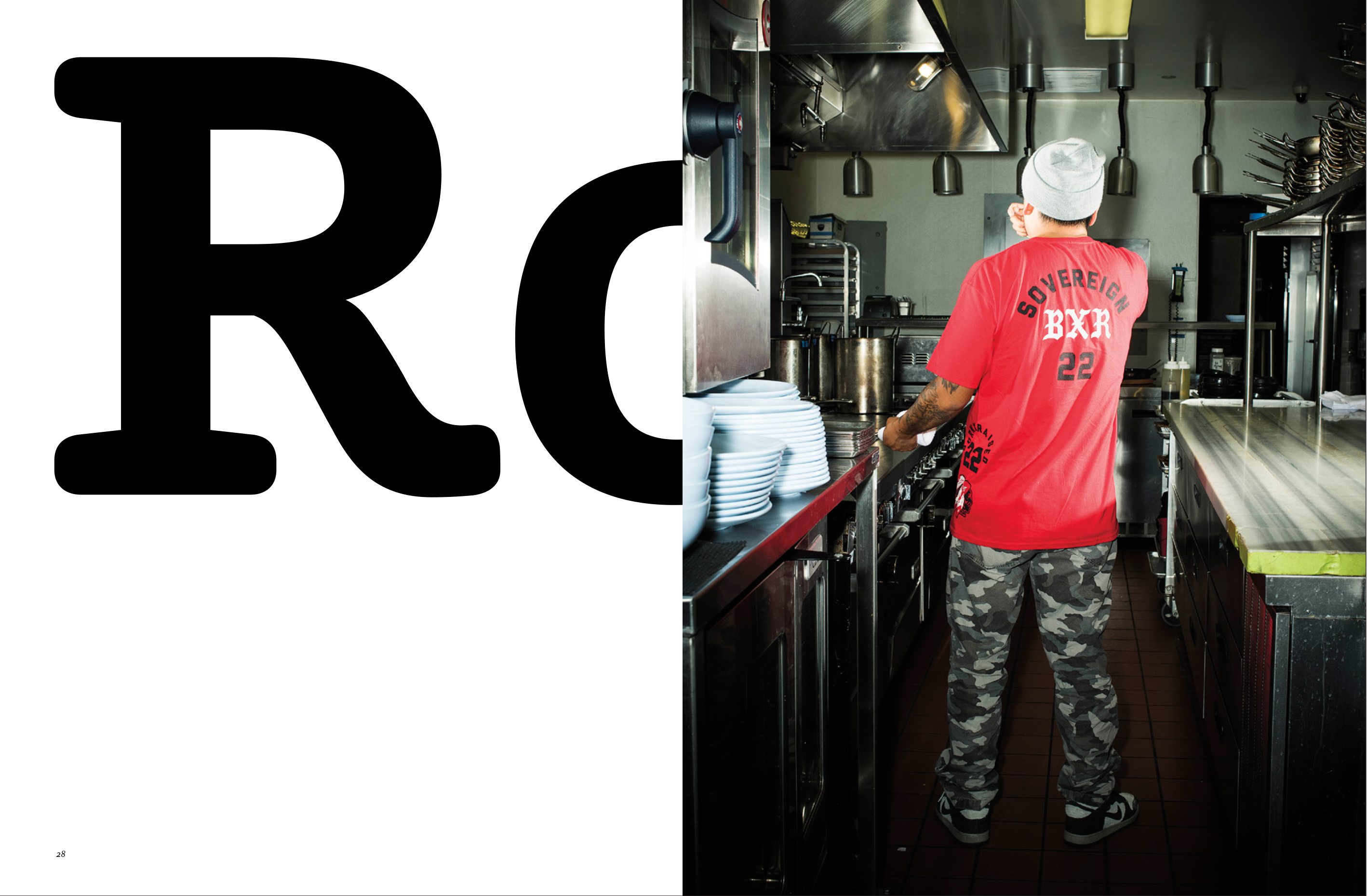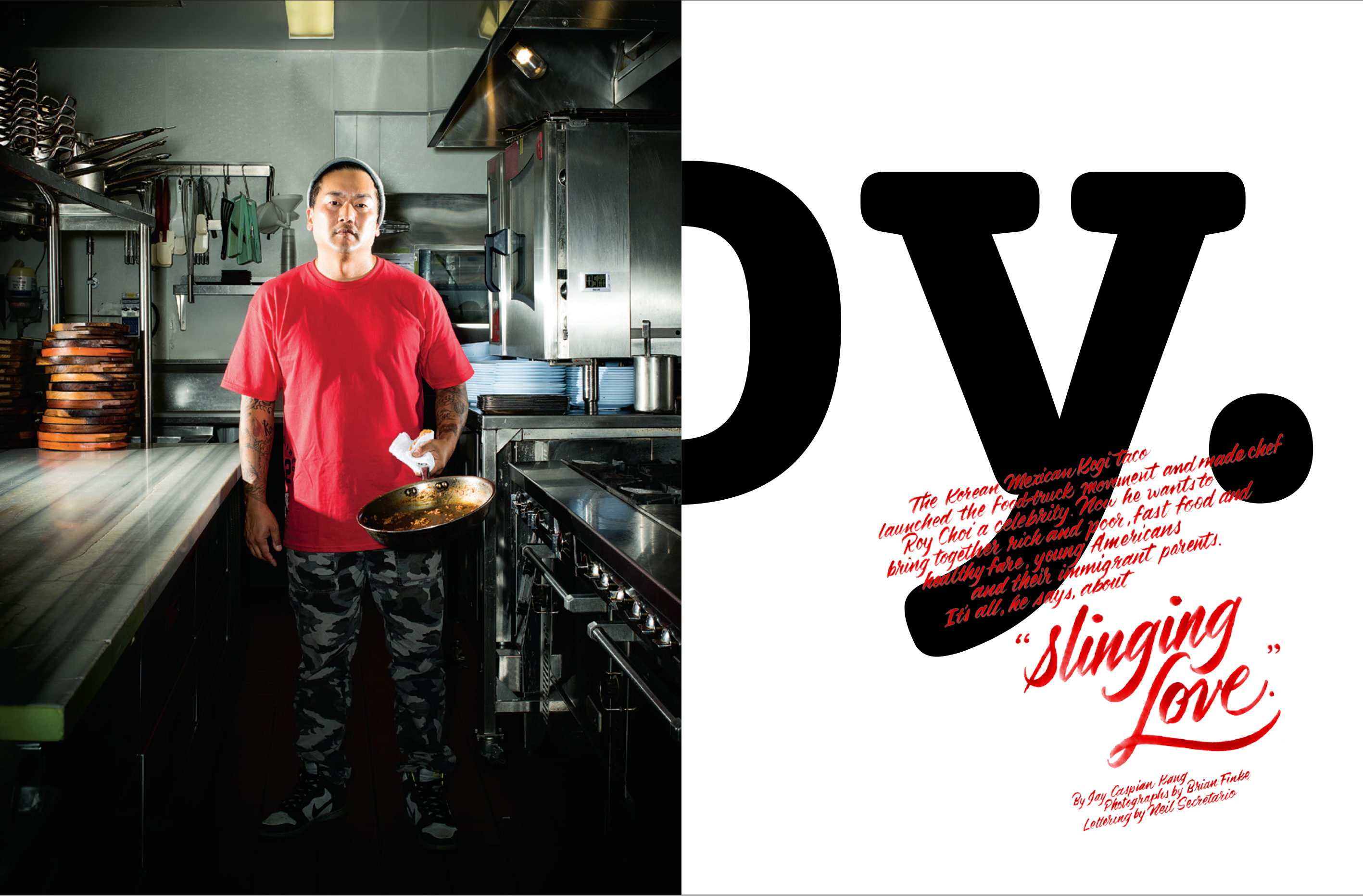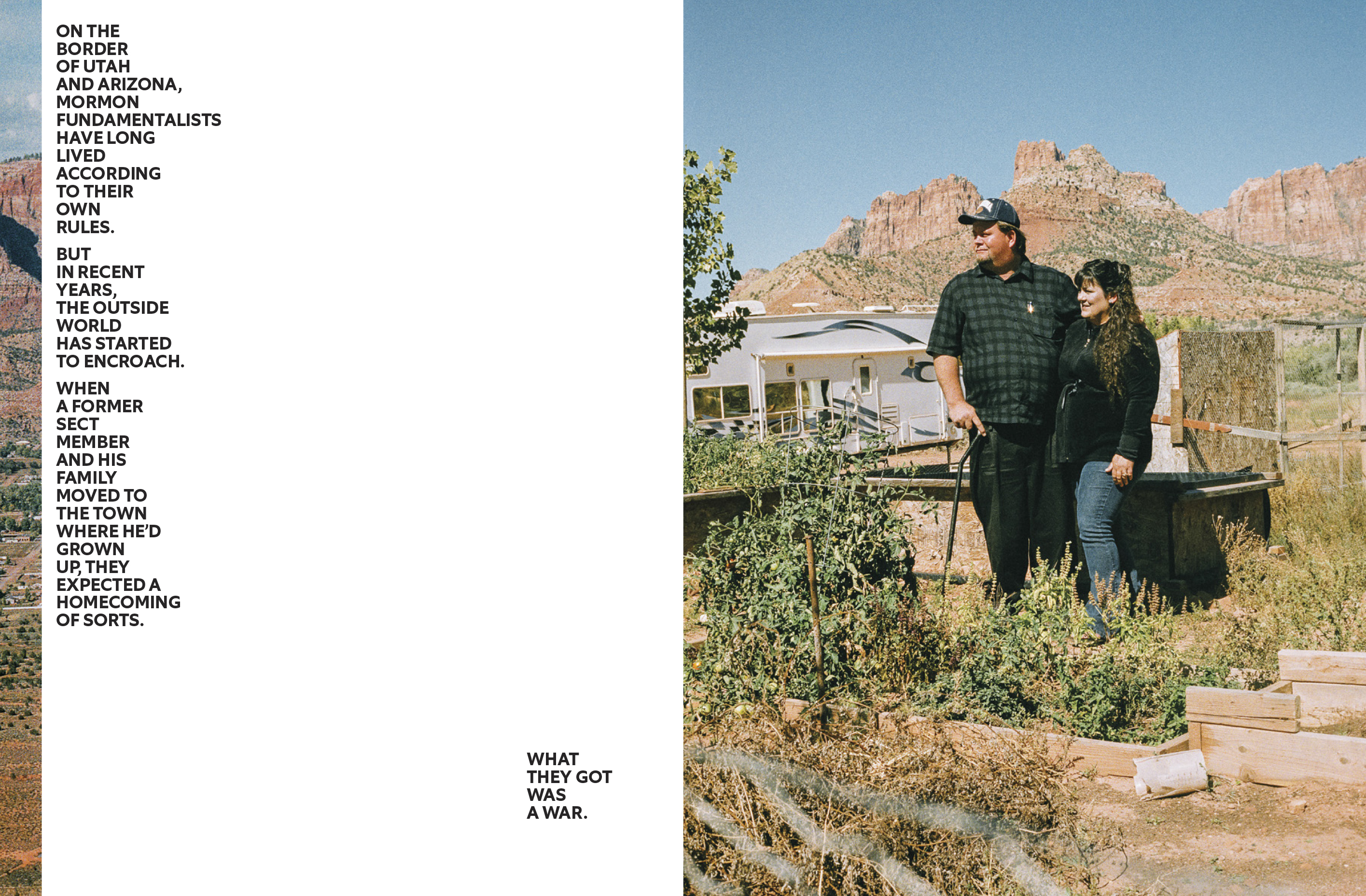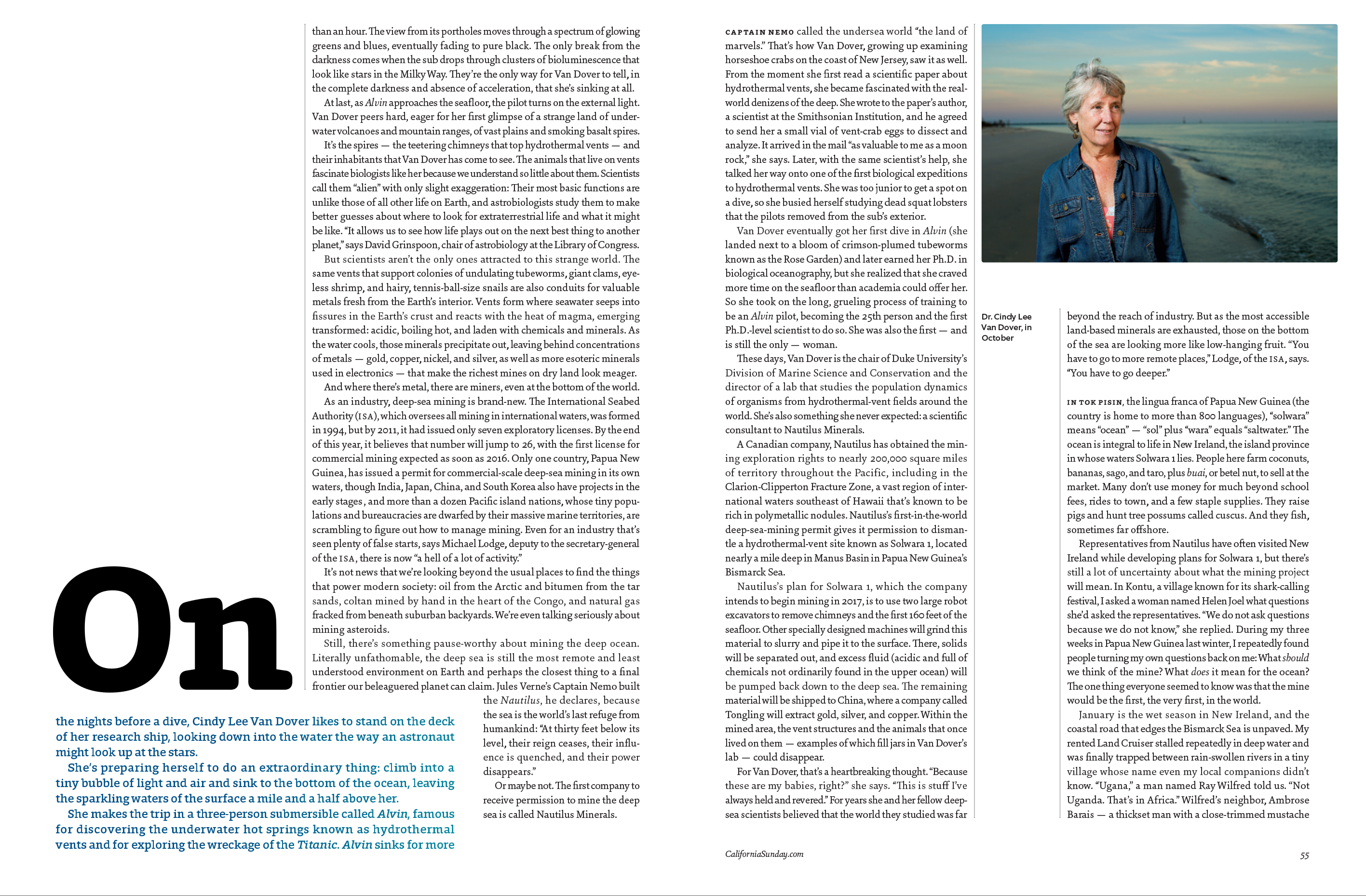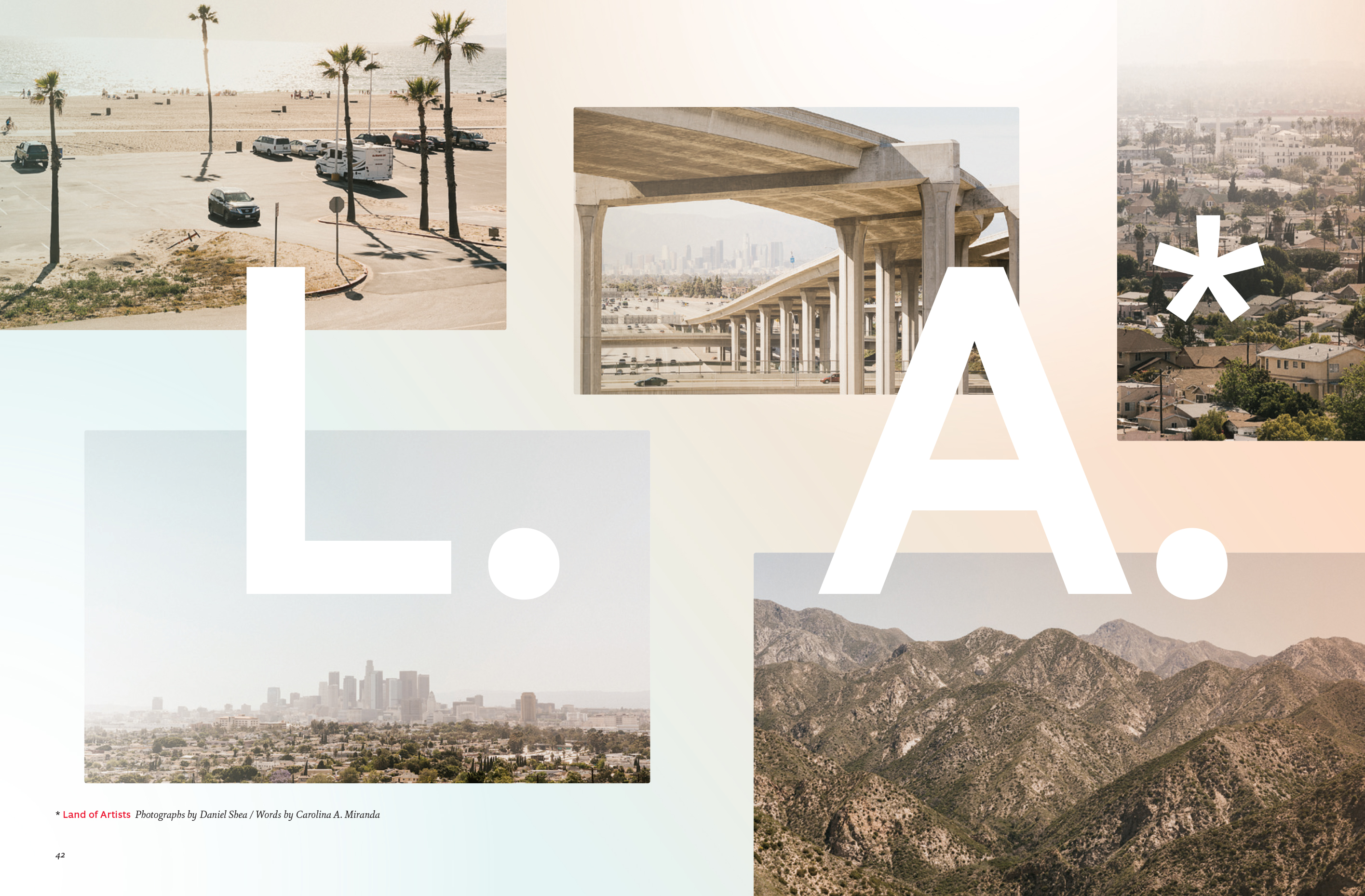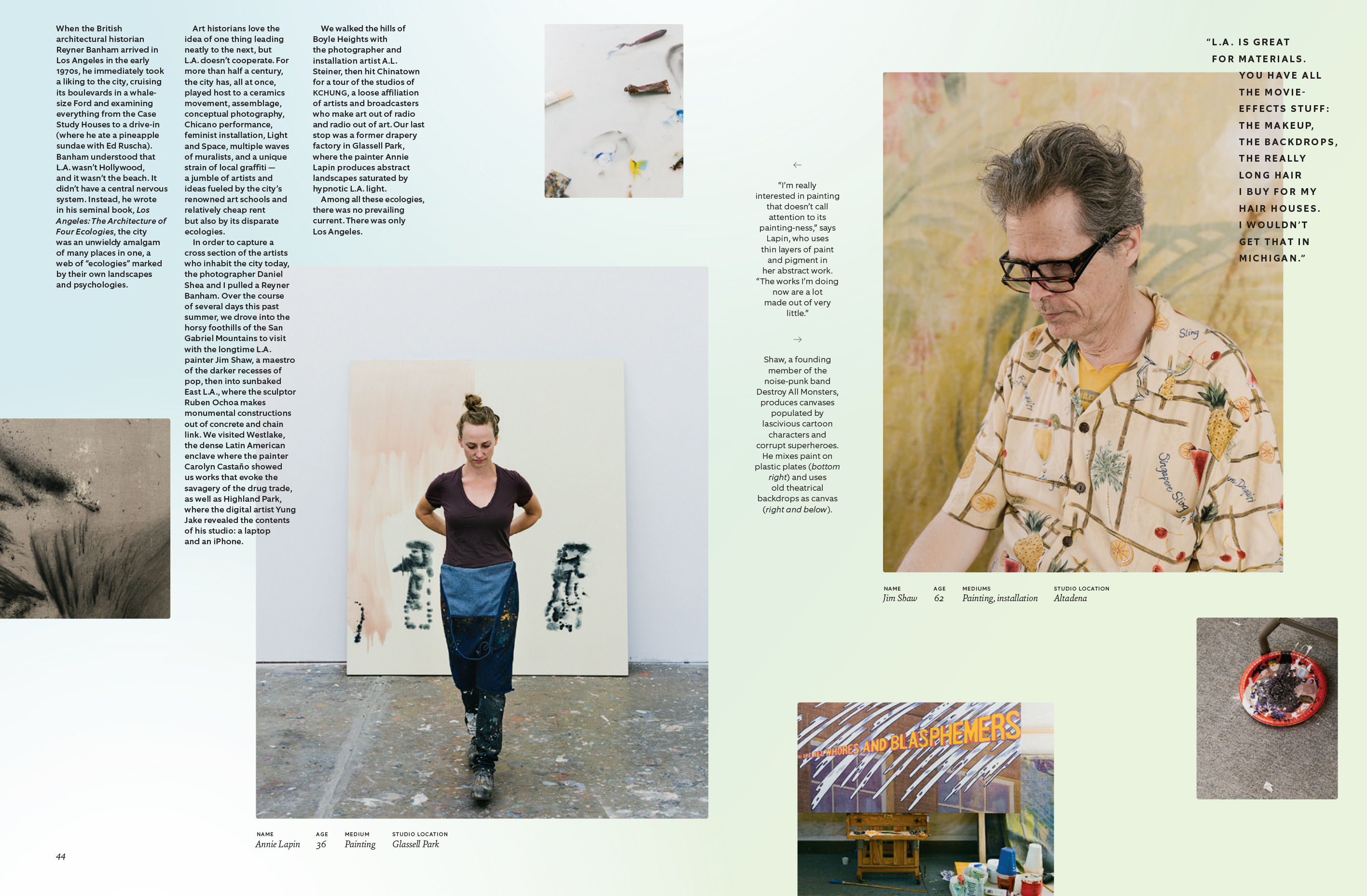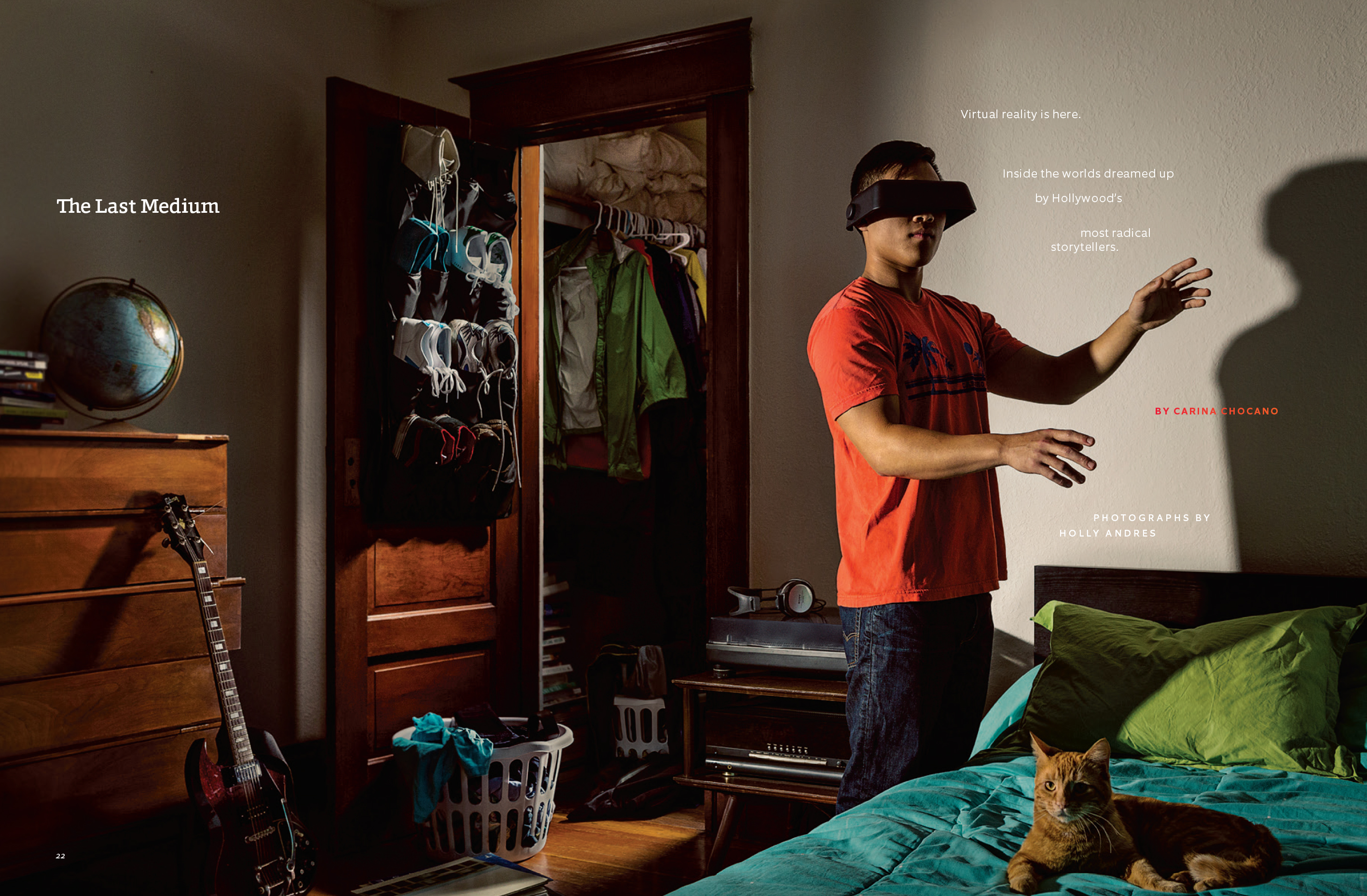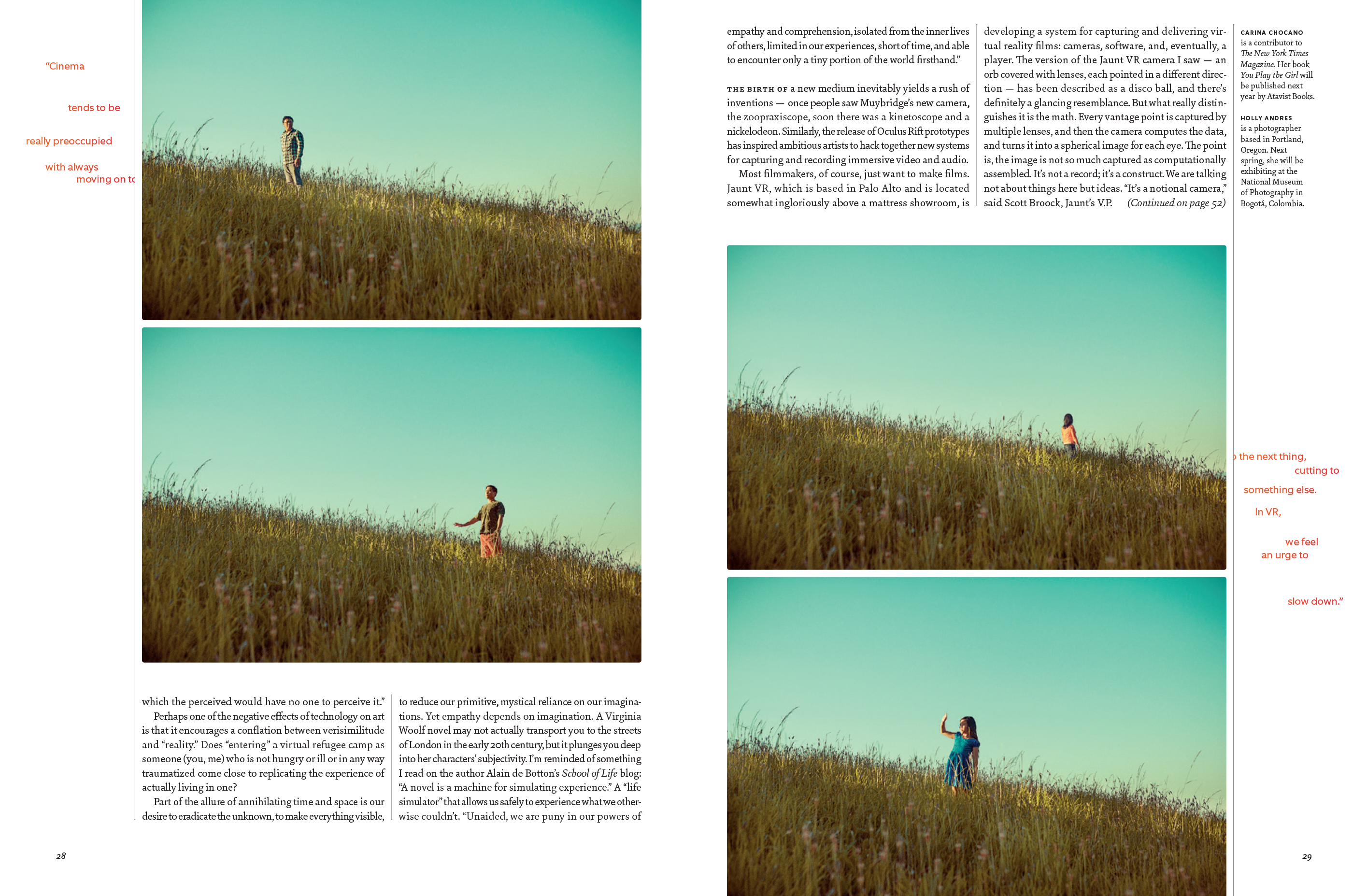
An interview with Leo Jung on his sleek California dreamin'
A man of many talents, Leo Jung continues to explore the limits of magazine design in the digital era. As the Creative Director of California Sunday Magazine, a publication that many have called the West Coast’s answer to New Yorker, San Francisco based Leo Jung’s vision of communication has been recognized by the Art Directors Club, Type Directors Club, and the Society of Publication Designers. This is a small talk we had with the former design director at Wired and deputy art director at The New York Times Magazine.The man who is responsible for a start-up experiment of many prospects.
Please tell us a little bit about yourself: who are you, where do you come from and where are you going?
Hi! My name is Leo. I was born in a small town outside of Montreal, but grew up and spent most of my life in Toronto. Over the last nine years I’ve worked in the U.S. — five of them in New York and the last four have been in lovely San Francisco. I am the creative director for California Sunday Inc., a media company, that includes The California Sunday Magazine and Pop-Up Magazine.
What was your first job ever?
I was lucky enough to start my design career at a brilliantly creative (and still very much so after many years) Toronto-based studio called Concrete. It didn’t occur to me then that the projects and the people would leave a very lasting impression on my growth as a designer. It was a post art school education unlike any other. The less interesting answer is my first job as kitchen help at a rotisserie chicken restaurant in Toronto back when I was a teenager.
What’s been the biggest turning point in your career so far?
Back in 2006, I moved to New York to work for The New York Times Magazine. Needless to say it was a completely eye opening experience. Aside from working for the most renowned news organization in the world, I was jumping from the quiet suburbs of Toronto to the hustle and bustle of Manhattan. It was life changing on many levels. I love Toronto and it will always be home — but there’s no other place in the world quite like New York City. The design community is incredibly big but surprisingly small at the same time. I was meeting designers whom I admired and only knew by name in design annuals. It was the design version of meeting Hollywood celebrities. I realized they were actually people. Real people -- like you and me. Becoming a part of that community does wonders to build confidence in what you do and motivates you to become better.
California Sunday Magazine was a challenge unlike any other. For the first time, I didn’t have the reputation of a company to define me. The blank canvas was as scary as it was exciting
What’s been your worst moment?
I don’t find it healthy to dwell on bad times. I’ve had my share of bumps in the road and the truth is they needed to happen in order for me to be where I am today. It’s about how you bounce back and not letting those moments define you.
What’s been your finest moment?
I’m very lucky to be able to say I’ve had many. And every time I think it’s as good as it’s going to get, something bigger happens. As of right now? Putting out the debut issue of The California Sunday Magazine. The whole team has very high ambitions for this title and we are working very hard to make sure that it lives up to everything that it can be. As time passes, I hope the answer to this question will change — and often.
Why did you decide to join the California Sunday Magazine start up?
Douglas McGray, one of the founders and brilliant minds behind Pop-Up Magazine approached me with a very intriguing proposition — a national magazine for the west coast. I realized that this was the opportunity that I was waiting for. It was a challenge unlike any other — head up the creative for a brand new magazine for print, digital, and live events. Oh, and build it from the ground up. Its potential was as big as I wanted it to be. Its creative vision would be mine to define. That’s not something any already-renowned magazine could ever really offer. For the first time, I didn’t have the reputation of a company to define me. The blank canvas was as scary as it was exciting.
Respecting the rules of graphic design and knowing when to break them is the best skill you can develop
What are your hopes and vision for it?
From the very beginning, Doug had always described wanting the magazine to be very visual and cinematic. That puts a lot of weight on the imagery to tell the stories. Working with my incomparable photo director, Jacqueline Bates, we’ve been able to define a look to our imagery that feels real, intimate, and engaging. Great photographs can convey so much information in terms of setting, mood, and emotion that the challenge lies in how you present that information in a way that best coincides with the narrative arc of the story. From a visual standpoint, the imagery (photography and illustration) is the most important. It gets the most real estate. The design is obviously important to me as well, but more secondary. You’ll notice the design more when it needs to be, but often times the imagery will do all the heavy lifting for me. Surprise is always an objective. The beauty of a general interest title is that you get to cover stories from a whole range of topics. That allows us to have an artful photo essay about the US-Mexico border in the same issue as a story on Cambodian-owned doughnut shops in California. Similarly, this is an opportunity for the imagery and design to be different as well. We try to avoid boring and expected.
Which commercial typefaces to you use and why?
When I set out to find a workhorse typeface for the magazine, I knew I wanted to find one that:
1. not many designers were using
2. felt appropriate for California
3. was versatile enough to be used for serious and fun stories
4. did not compete or look similar to the logo
I found that wonderful balance in Foro Rounded, a beautiful typeface designed by Dieter Hofrichter. When you look closely at this typeface, or any of his typefaces for that matter, you’ll notice how beautifully crafted they are. The letterforms, the ligatures, the small caps, the proportional old style numbers, and the vast array of weights all make you realize how comprehensive and considered the typeface was when it was designed. The use of a rounded slab serif as the main typeface seemed refreshing to me as well — not so serious, casual, but intelligent. Very California. I really love it. It feels modern without being trendy. I really had to trust my gut when I chose Foro. It’s not like everyone was using it and it wasn’t a face that everyone was talking about. Sometimes you need that reassurance to feel good about the choices you make. For what I was looking for though, it felt and looked perfect. I needed to trust that. After that, it seemed natural to try out some of Dieter’s other typefaces to pair with Foro. I landed on Sina Nova for the body text. I thought it had character without drawing too much attention to itself. The last thing you want to do when reading a story is be distracted by what a typeface looks like. For a generic sans, I chose Equip. It had a nice neutral feel reminiscent of Avenir and Gill Sans. It gave me a simpler typeface to work with whenever Foro felt too fussy to use.
What is the best piece of advice you’ve ever been given?
Follow the work, not the money.